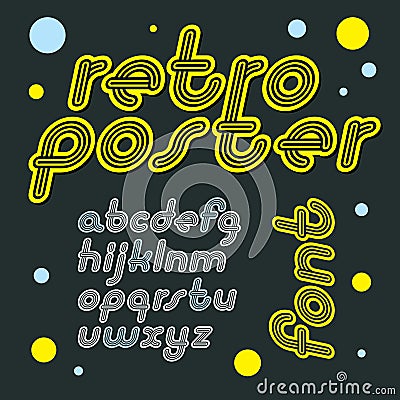
Vector Retro Lowercase English Alphabet Letters Collection. Cool Disco Cursive Font, Script From A To Z Can Be Used In Poster Art
Vector retro lowercase English alphabet letters collection. Cool disco cursive font, script from a to z can be used in poster art Vector Illustration
Vector retro lowercase English alphabet letters collection. Cool disco cursive font, script from a to z can be used in poster art. Made with geometric parallel triple lines